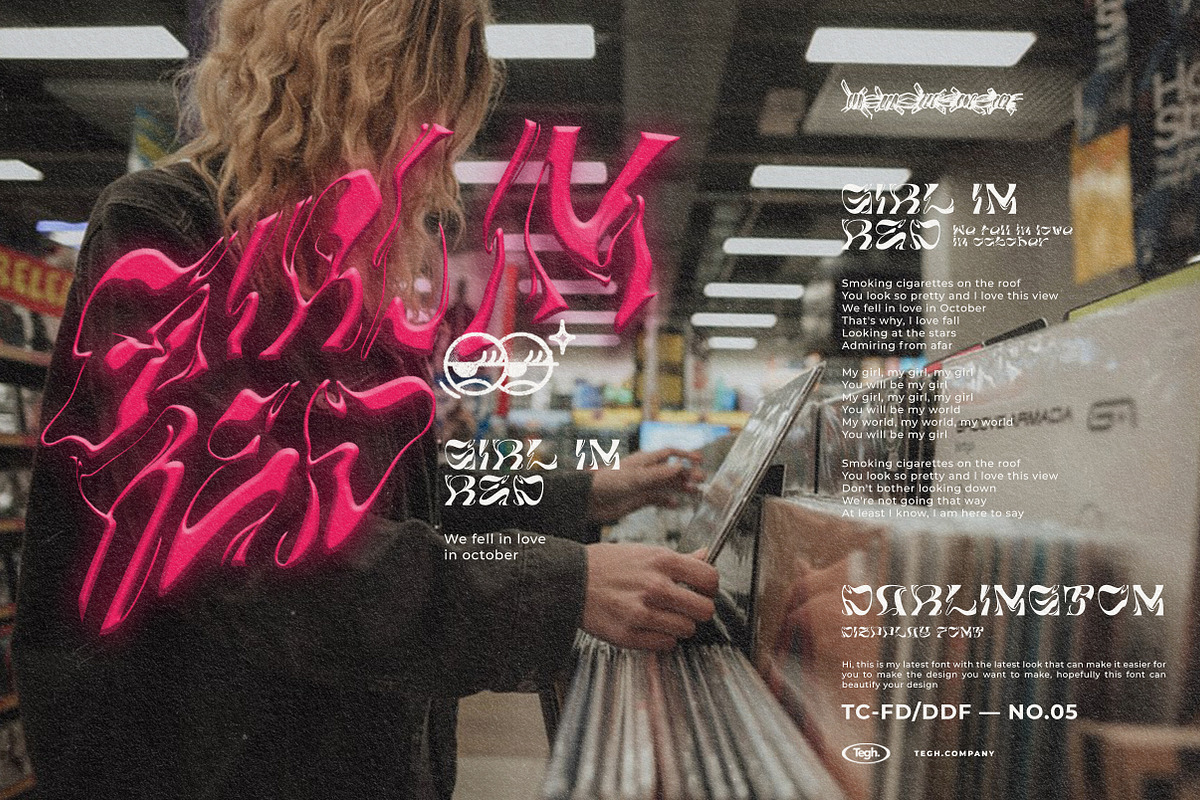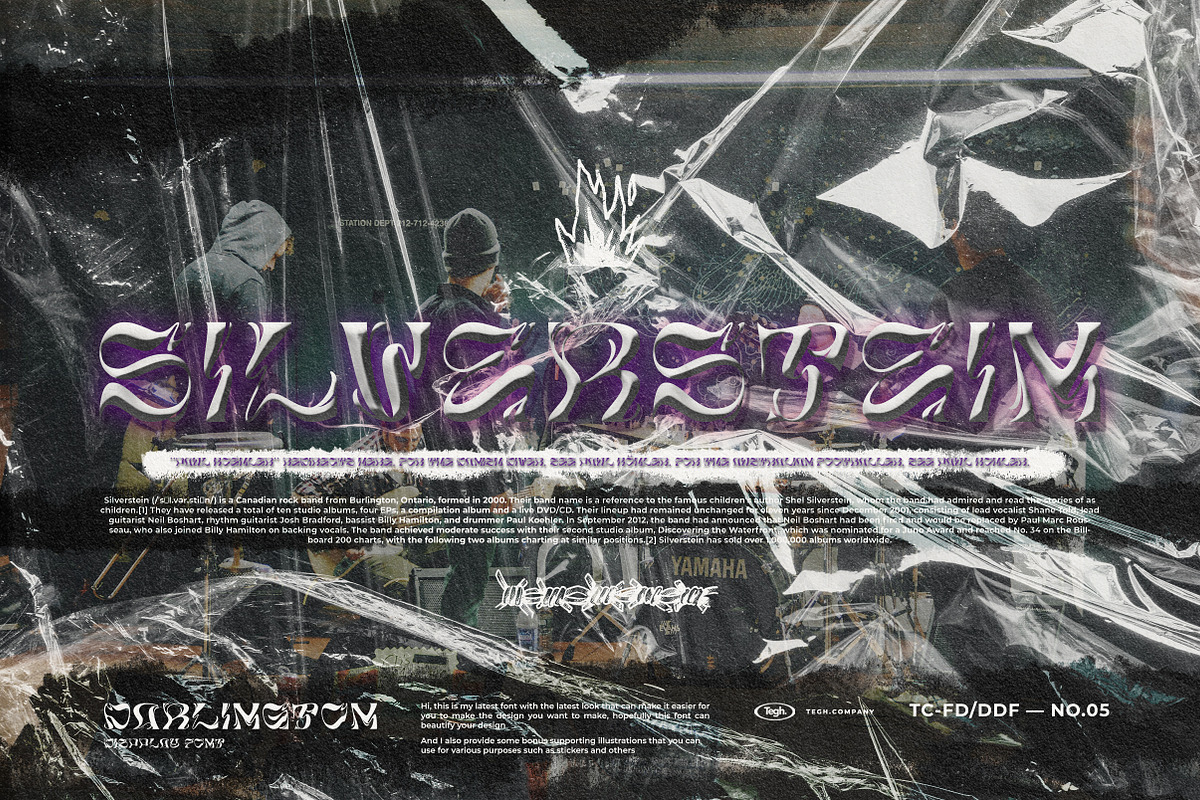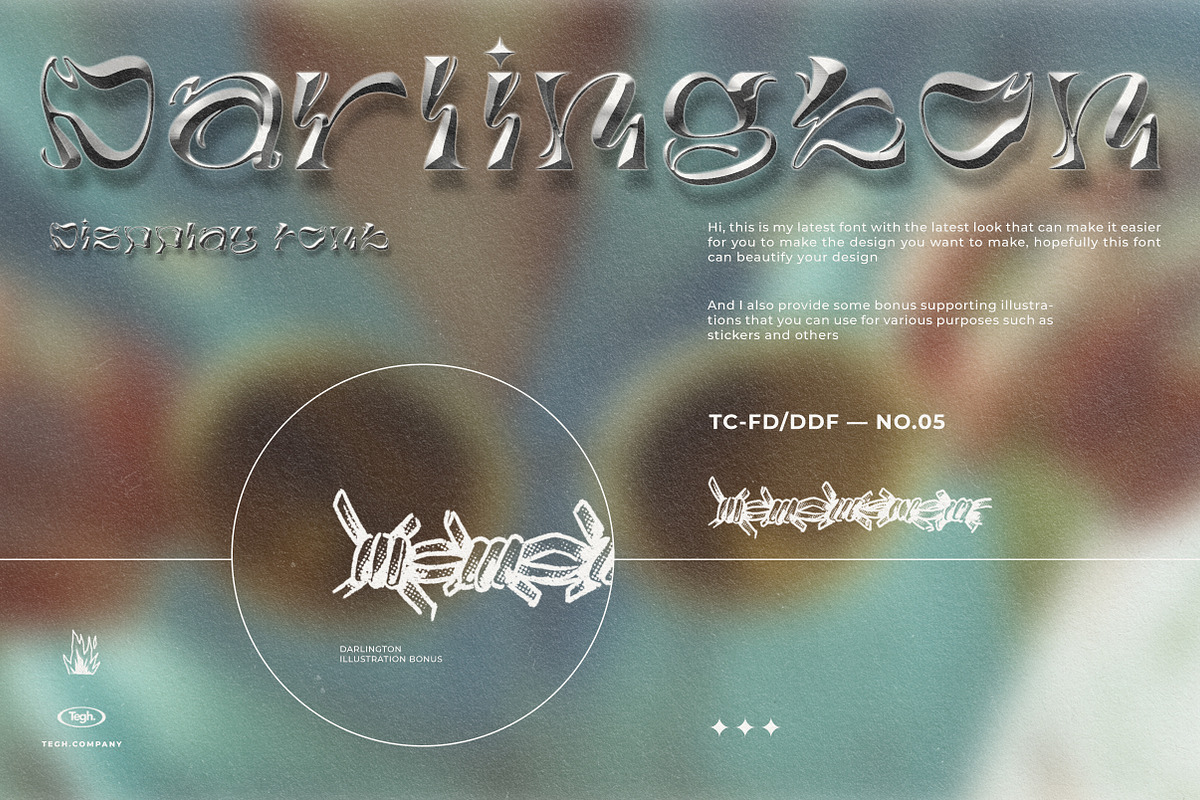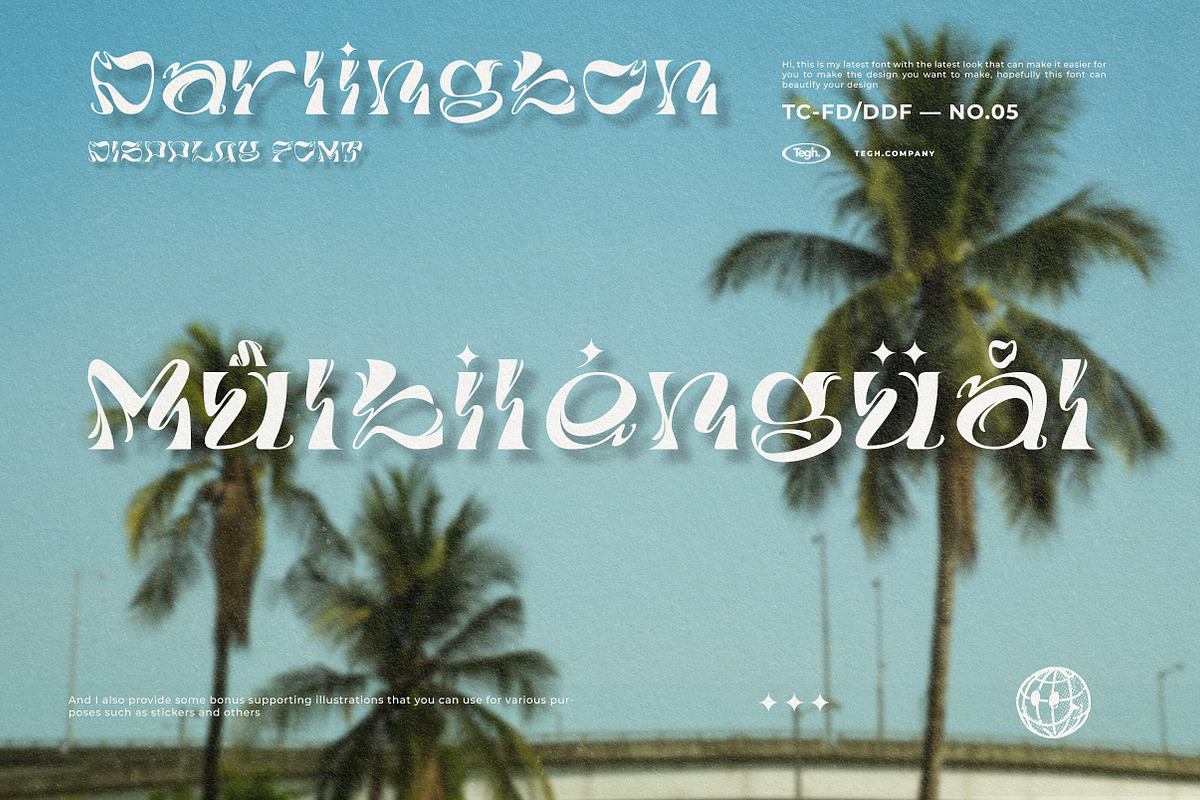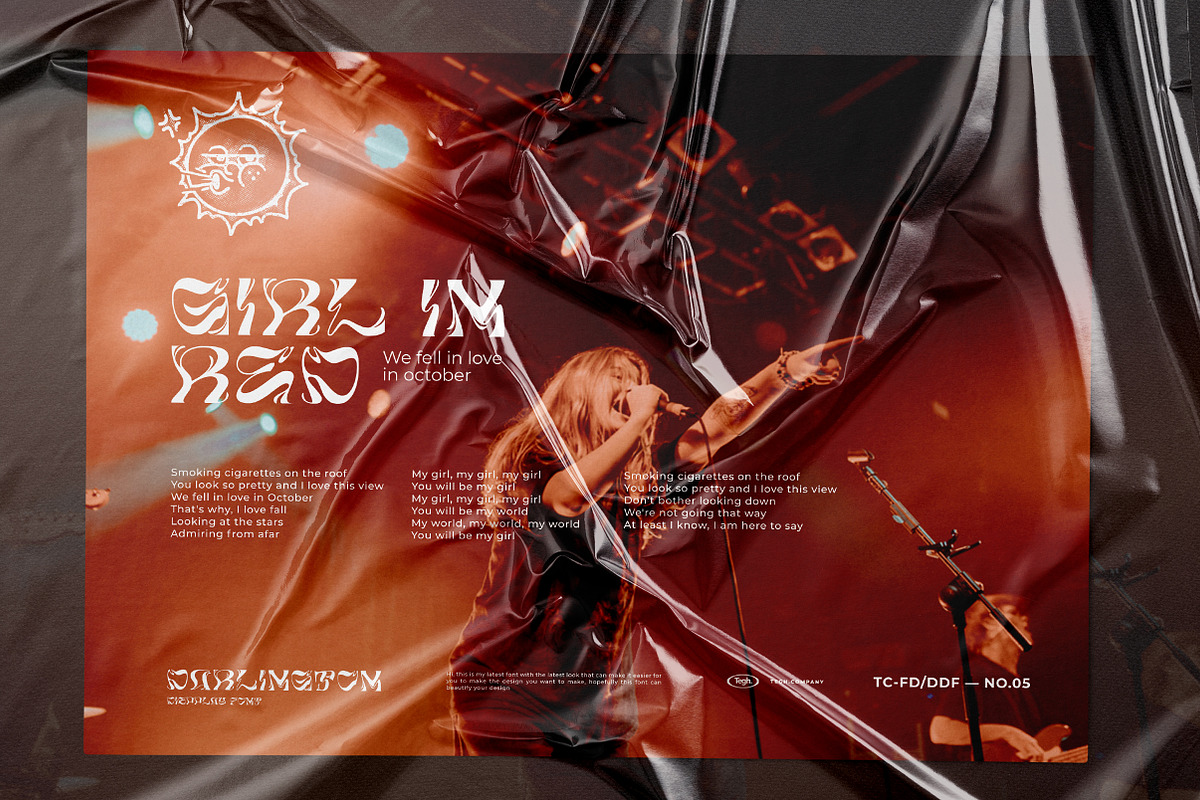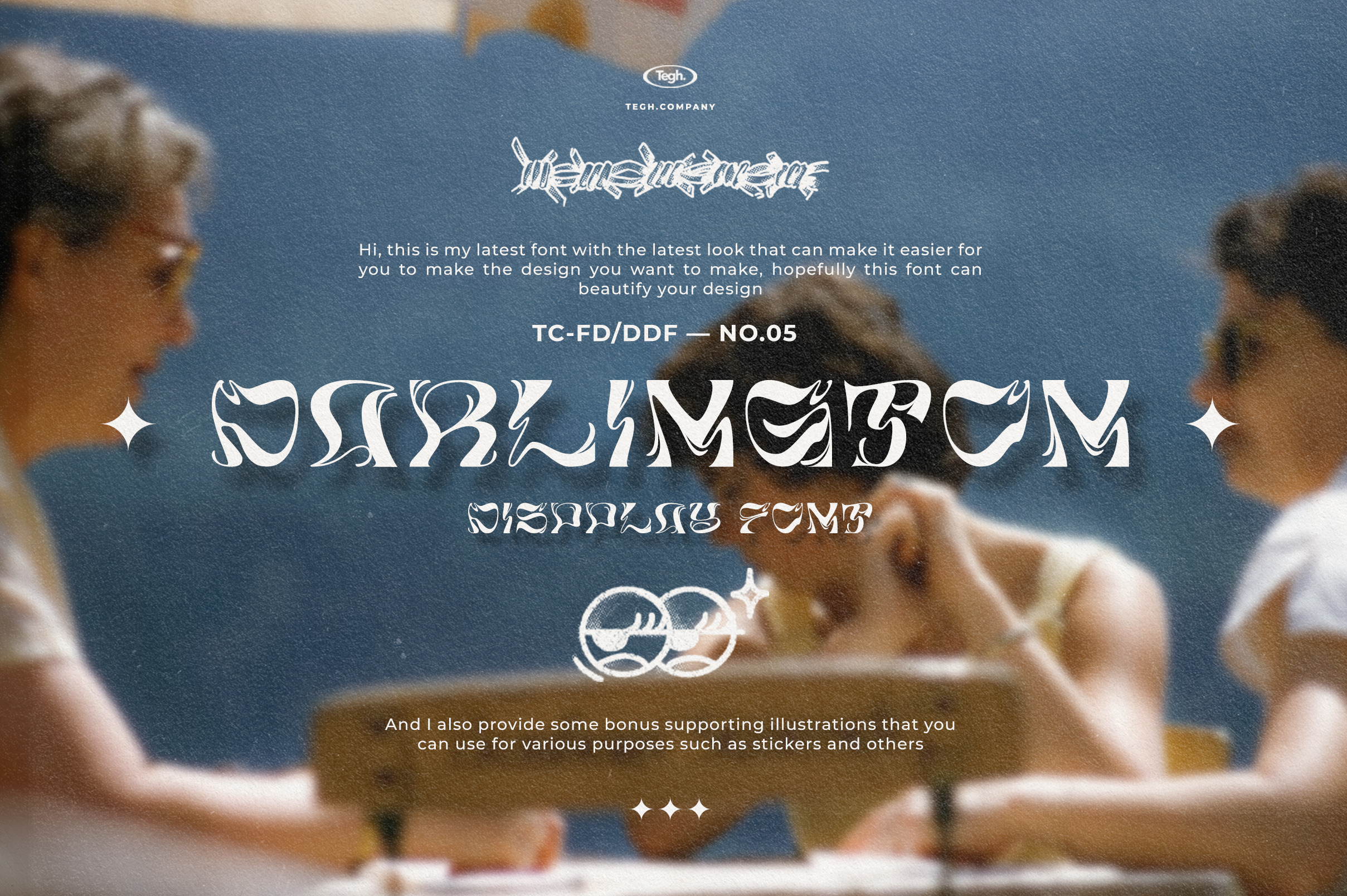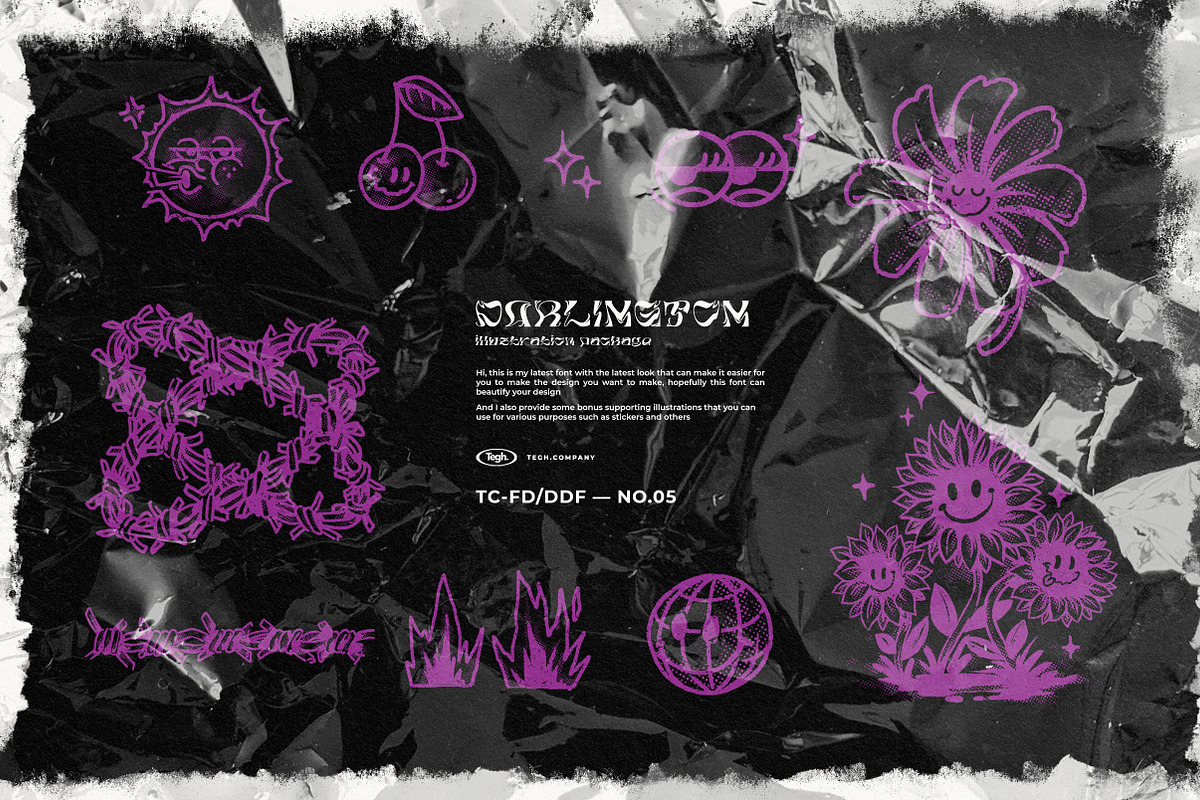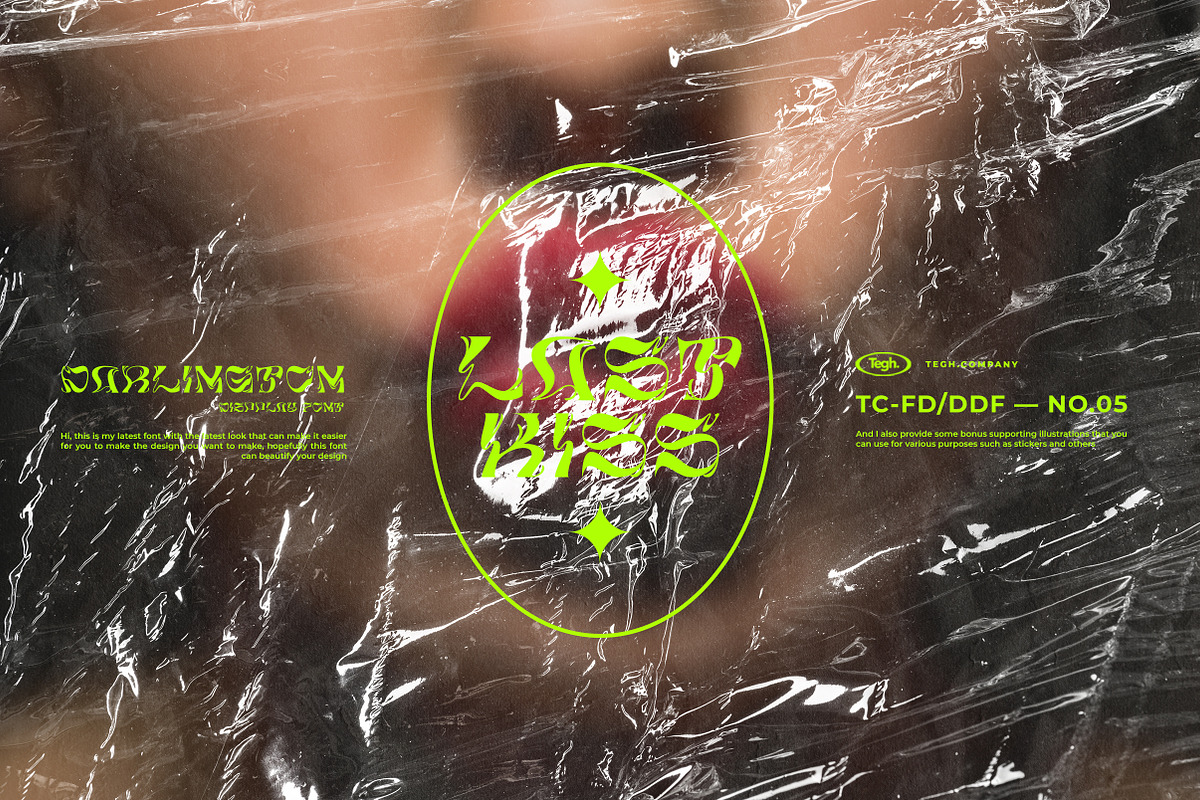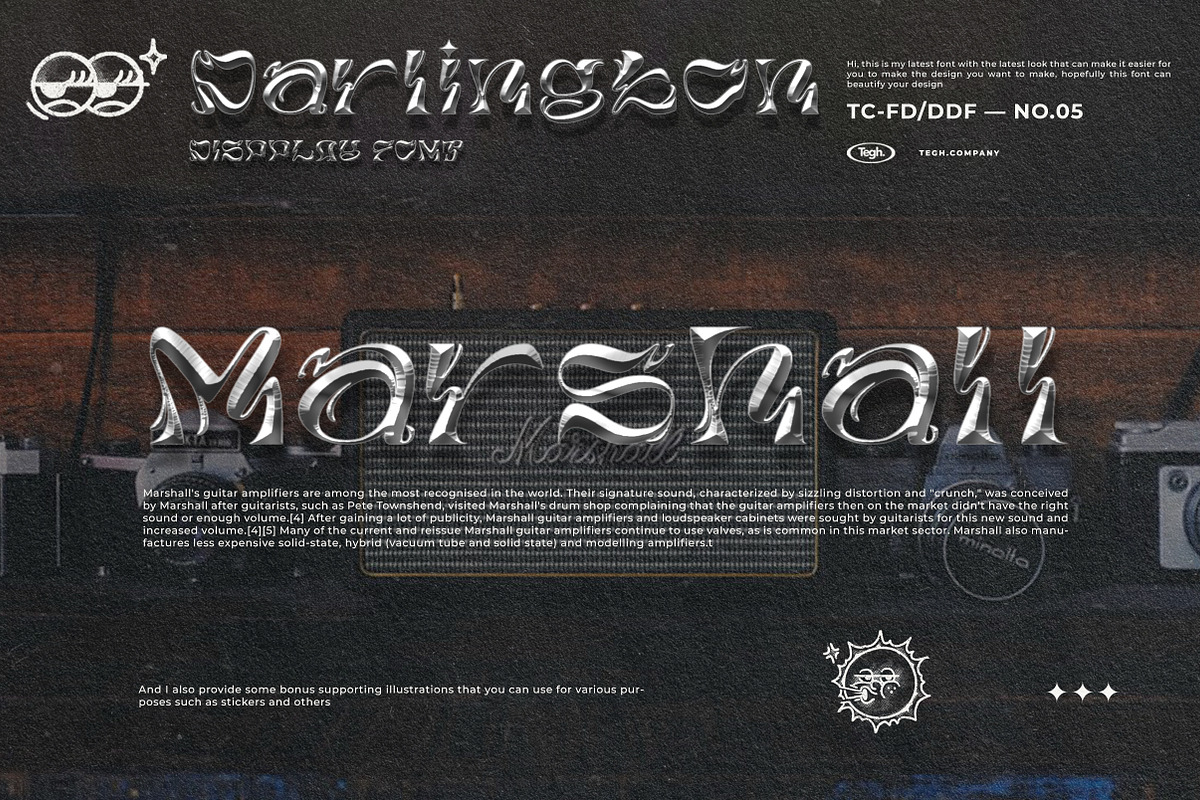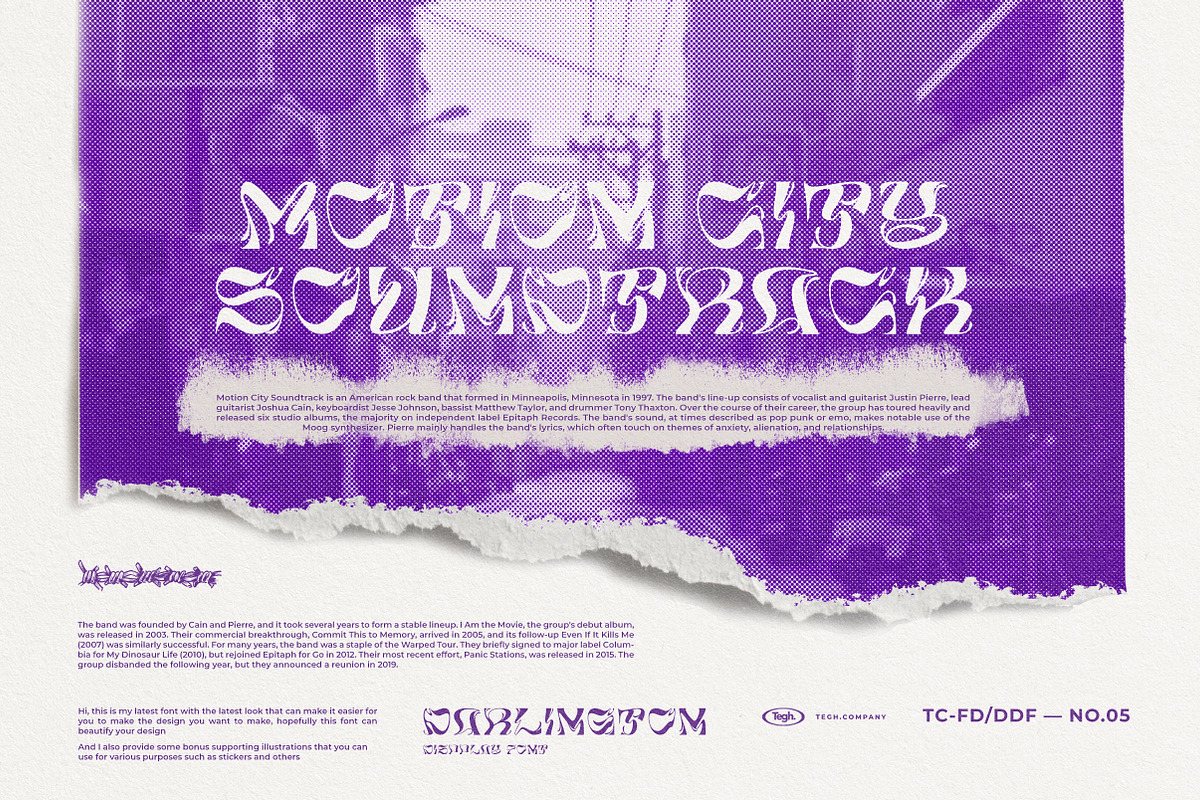
Darlington display font
hello, I'm back with the latest font that you can easily use for your design needs, I provide a display font as a support, and don't forget I also give a free bonus in the form of illustration badges that you can easily use, you will definitely easily make designs with the font that I made, because I made this font with the aim of making it easier for you to make designs such as posters, layouts and others